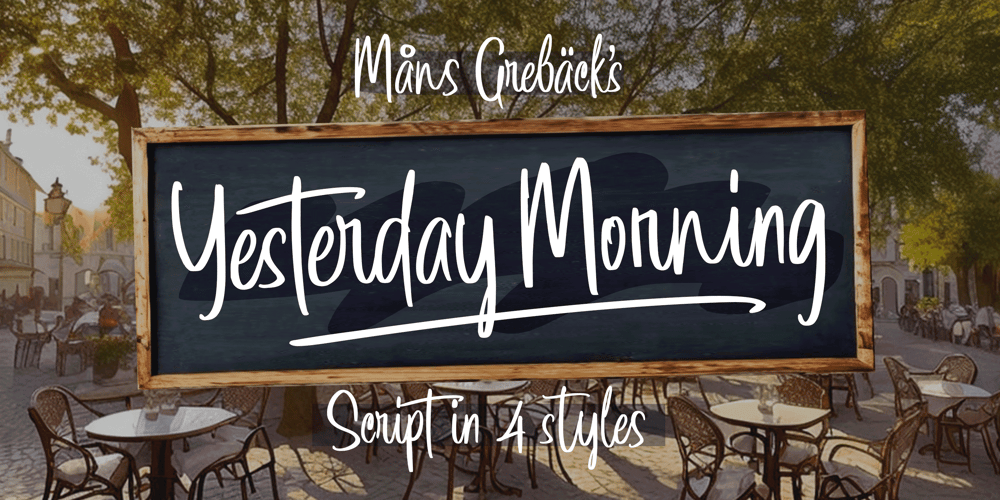
Yesterday Morning
Yesterday Morning font
Yesterday Morning Font Family was designed by Måns Grebäck and published by Mans Greback. Yesterday Morning contains 4 styles and family package options. Yesterday Morning is a lively handwriting font that captures the essence of an active and cute brush style. This handmade calligraphy font is perfect for fashion projects, adding a sense of energy and excitement to your designs.The font family’s hand-brushed appearance brings an authentic, personal touch to your creative work, making it feel warm and approachable. The Yesterday Morning font family includes four engaging styles to suit various design needs:Regular: A balanced and energetic style for everyday useRegular Italic: Adds a playful touch and a sense of movementBold: Offers a bolder, more assertive presence for impactful designsBold Italic: Combines the strength of bold with the flair of italicBuilt with advanced OpenType functionality, Yesterday Morning ensures top-notch quality and provides you with full control and customizability. It includes stylistic alternates, ligatures, and other features to make your designs truly unique.